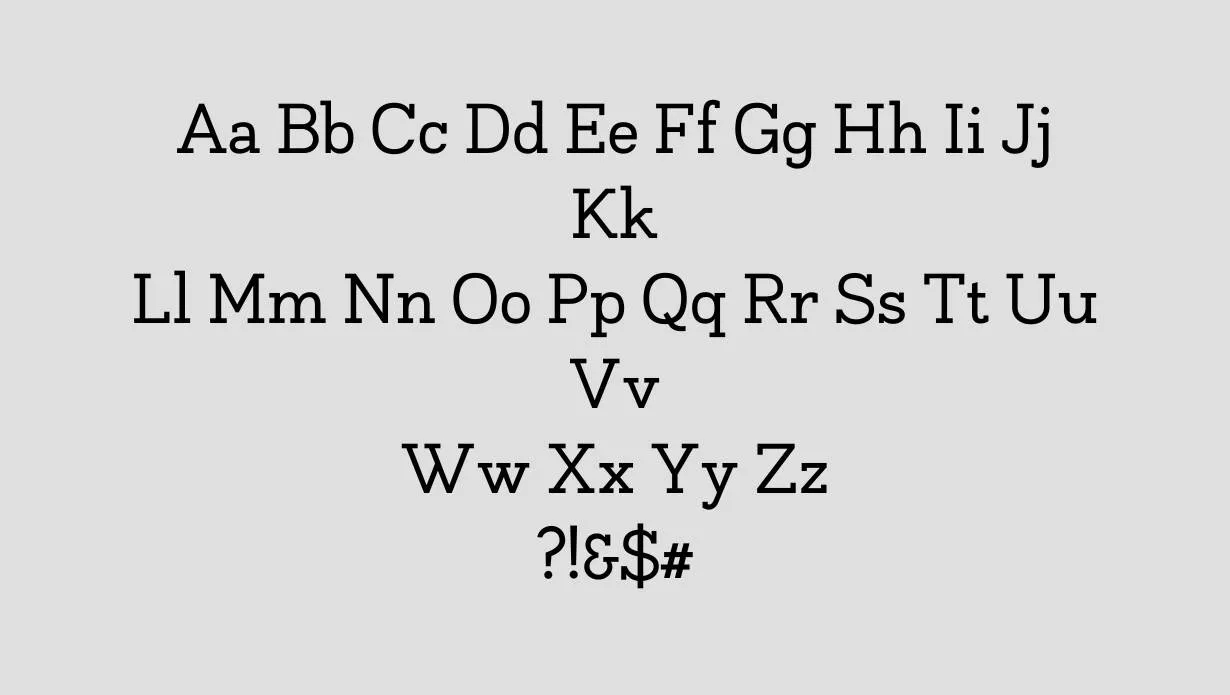
This font’s friendly and approachable nature makes it perfect for designs that need a welcoming and warm appearance, adding a touch of elegance to a friendly atmosphere. To achieve an exclusive and eye-catching design, it is essential to pair this font with the marlboro font.
| Name | Napo Font |
| Designer | Isabella Ahmadzadeh |
| Style | Slab-Serif |